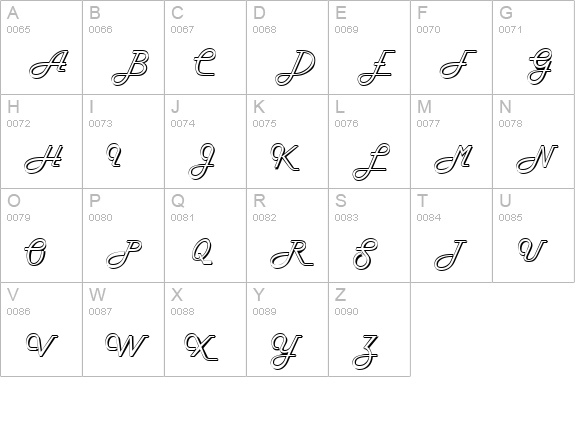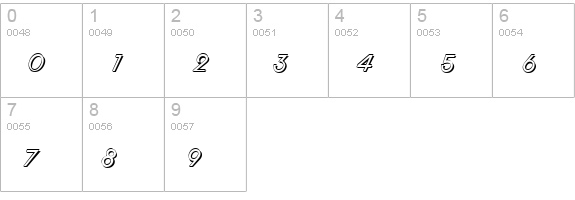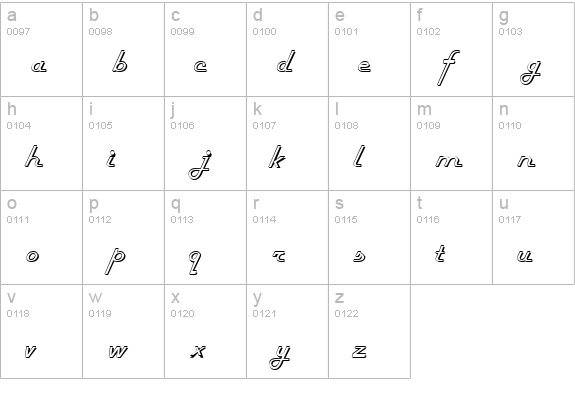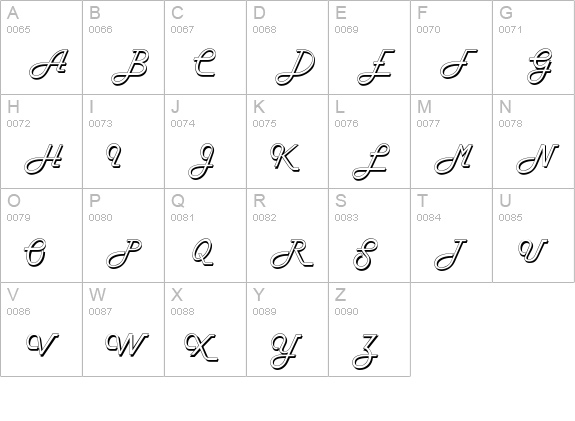
Colour Font Details
Introducing Colour font, a vibrant and eye-catching typeface designed to add a pop of color to your projects. This playful font is perfect for creating fun and engaging designs that stand out from the crowd. With its bold and unique style, Colour font is sure to make a statement wherever it is used. One of the best things about Colour font is that it is completely free to download. You can easily access this fantastic font at FontsMarket.com and start using it in your projects right away. Whether you are working on a poster, flyer, website, or any other design, Colour font is a versatile choice that will help you bring your creative vision to life. Don't miss out on the opportunity to enhance your designs with the dynamic and expressive qualities of Colour font. Download it for free today and let your creativity shine!